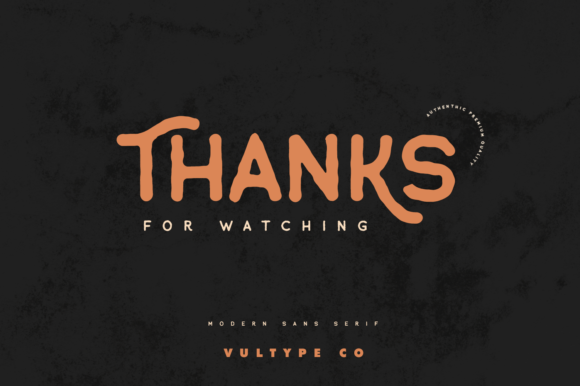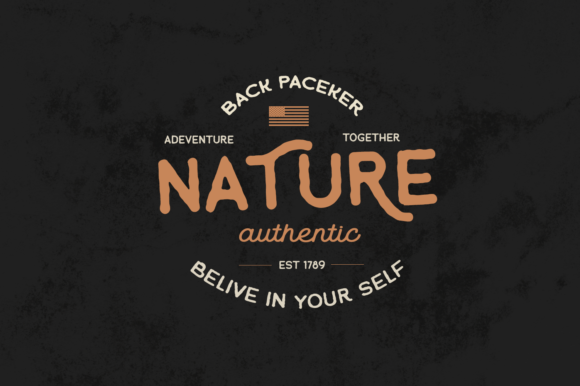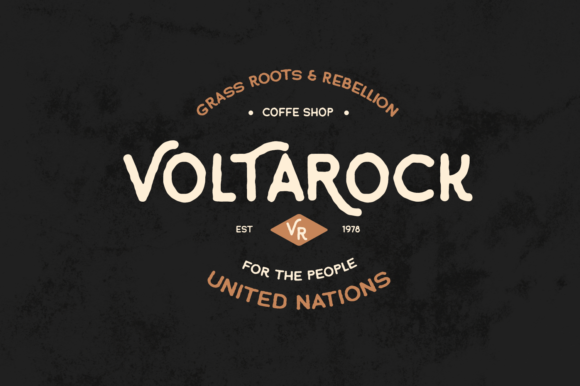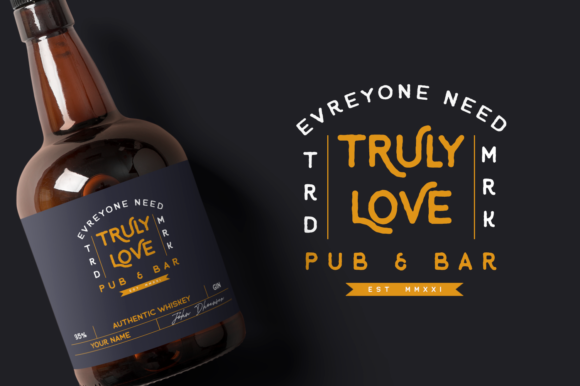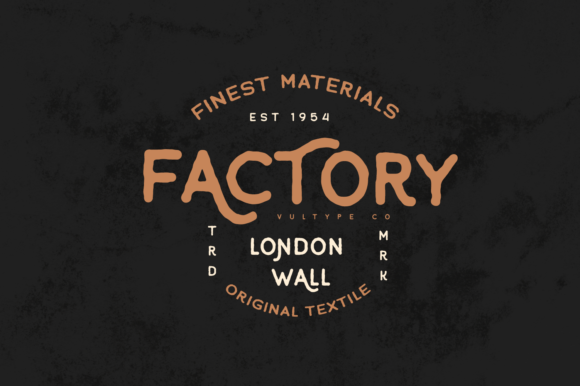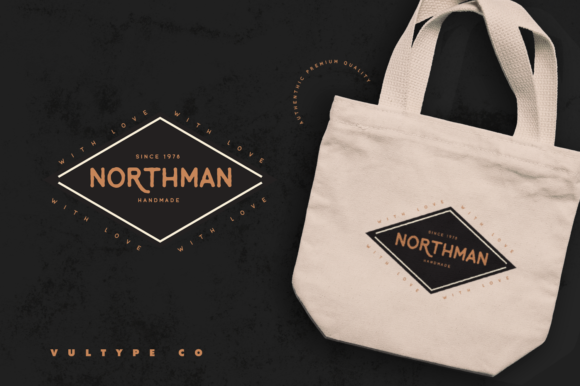
Introduction to Merton Font
Merton is a cool, vintage styled and assertive display font.
It has a modern yet whimsical style and it will undoubtedly immerse your designs into a magical world .
Key Features of Merton Font